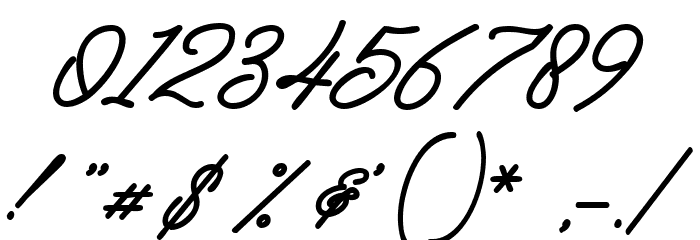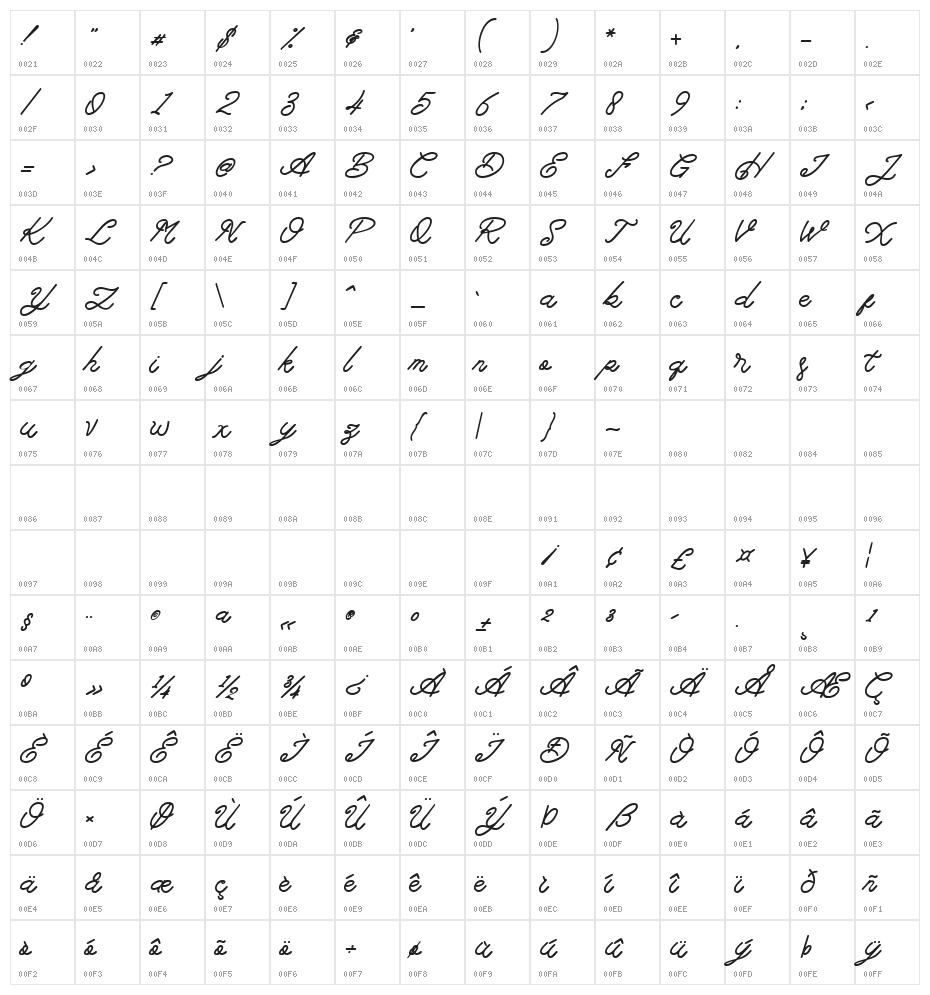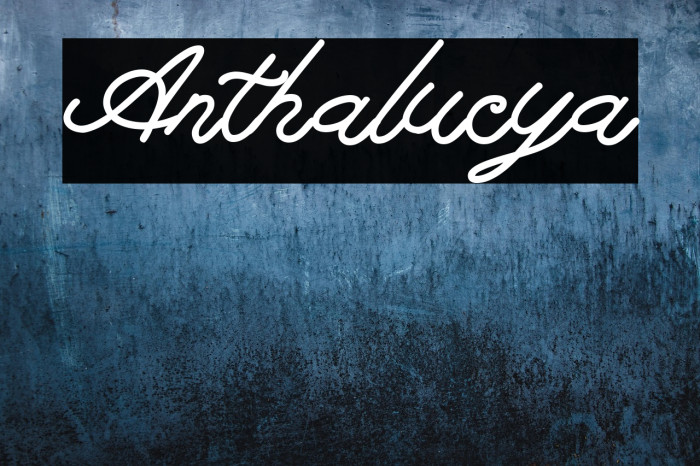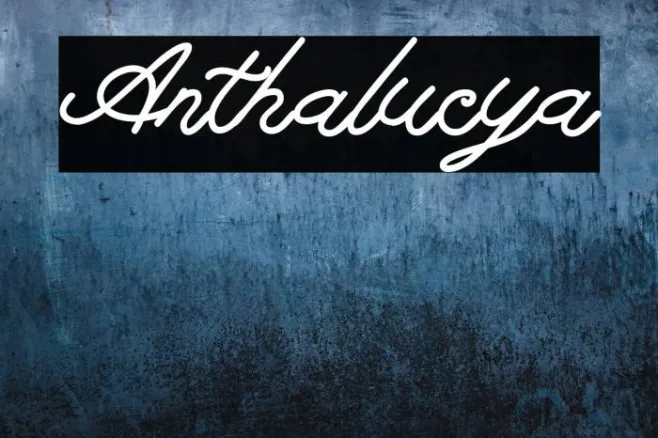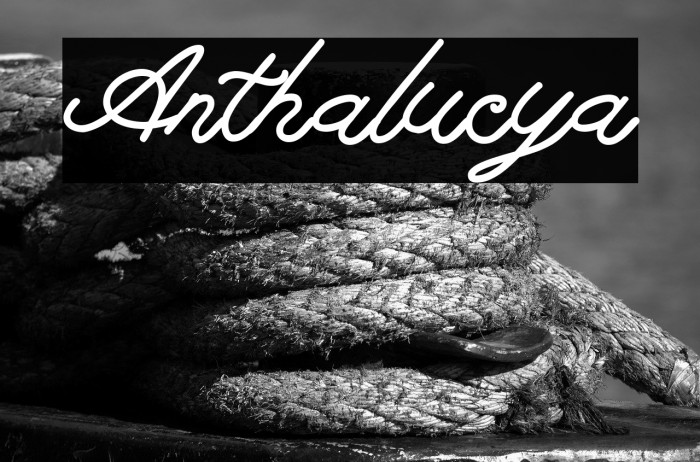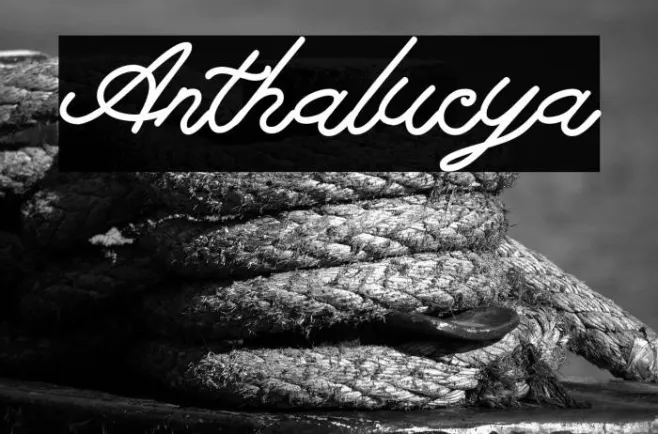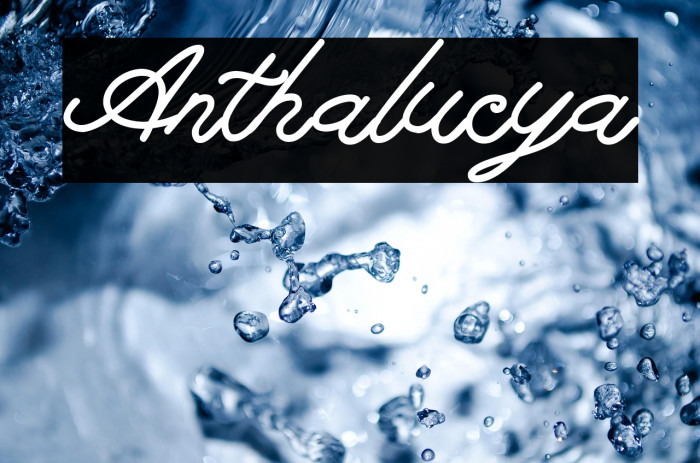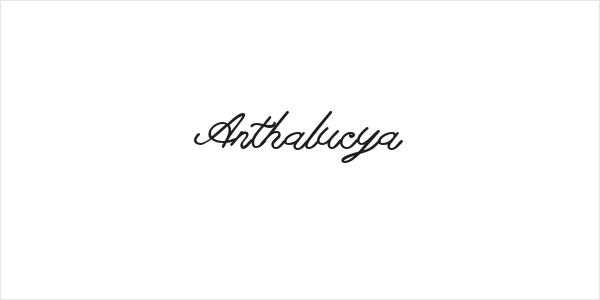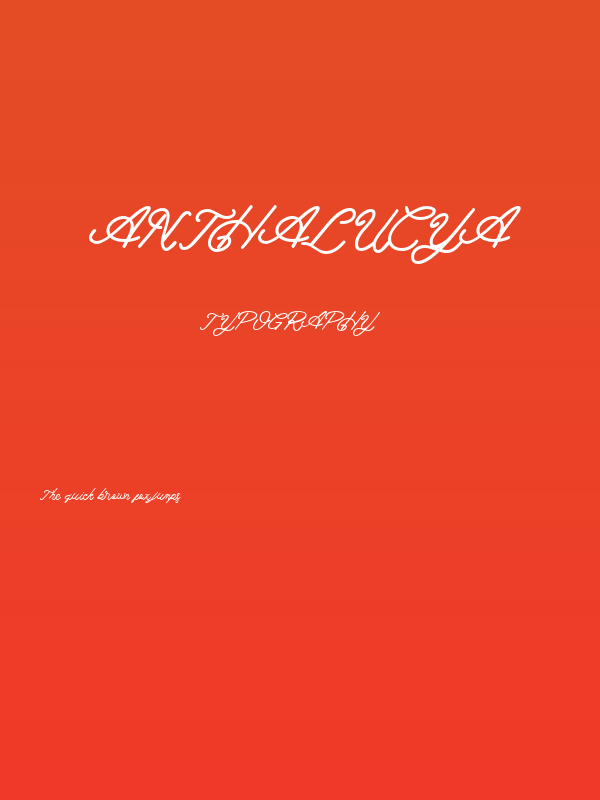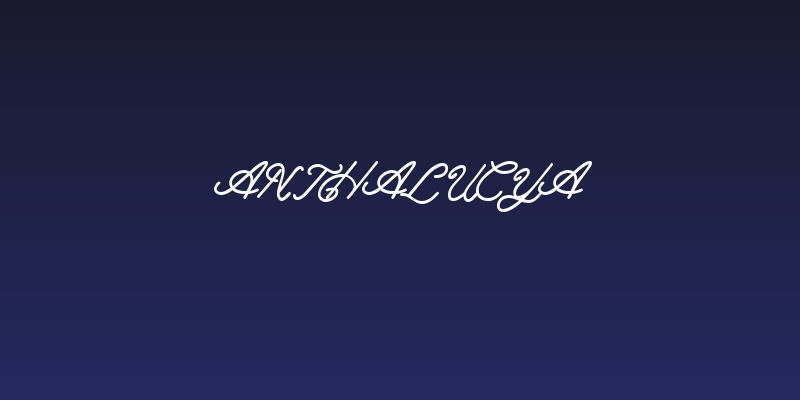
Anthalucya Font
Anthalucya Description
This elegant script font features fluid, connected strokes that mimic the natural flow of handwriting. The uppercase letters are ornate and slightly larger than the lowercase, adding a touch of sophistication. The lowercase letters are smooth and seamlessly connected, enhancing readability while maintaining an artistic flair. Numbers and special characters are designed with the same flowing style, ensuring consistency throughout. The overall appearance is graceful and refined, making it suitable for formal and decorative purposes.
| Proposed Projects | Ideal for wedding invitations, greeting cards, branding, and elegant logo designs. |